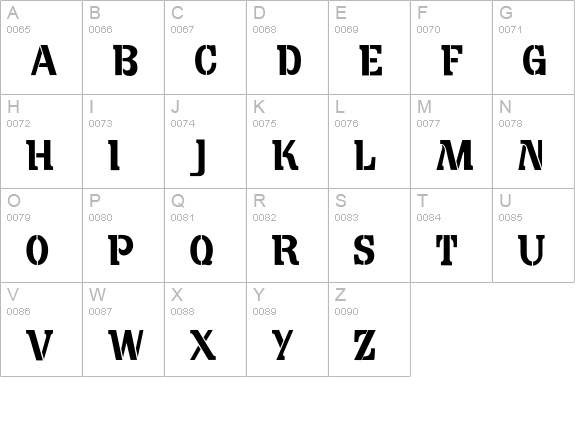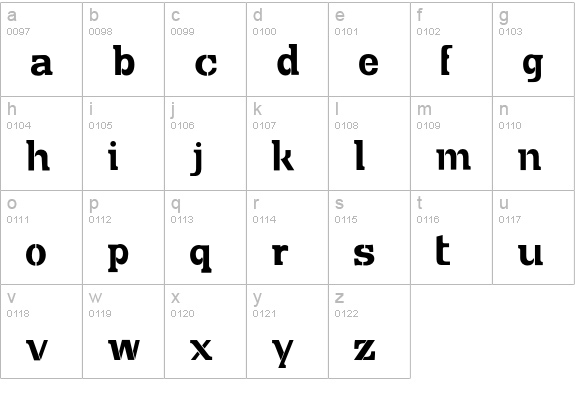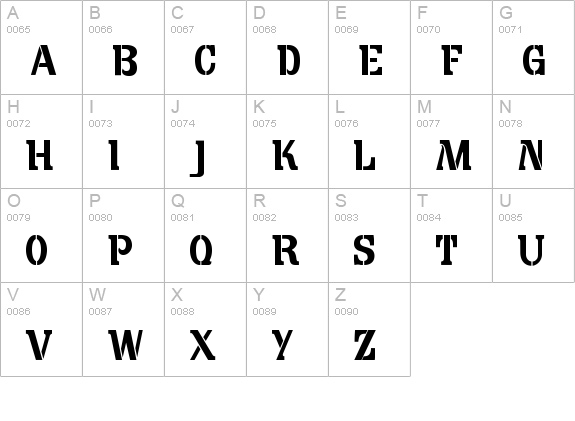
Introducing Mexico font, a beautifully crafted typeface that exudes the vibrant and rich cultural essence of Mexico. With its bold and dynamic design, Mexico font is perfect for adding a touch of flair and energy to your projects. This versatile font is ideal for various design applications, from posters to branding to social media graphics. What makes Mexico font even more appealing is that it is available for free download at FontsMarket.com. That's right, you can bring the spirit of Mexico into your designs without any cost. Embrace the bold and lively aesthetic of Mexico font and elevate your creations with its unique charm and personality. Download Mexico font today and let your designs stand out with a touch of Mexican flair.